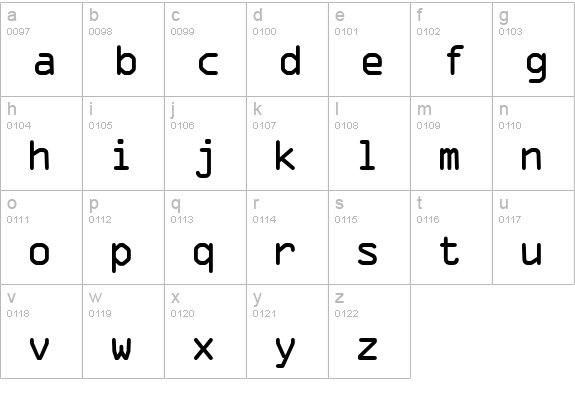
OCR 1 SSi Font Details
OCR 1 SSi font is a versatile and professional typeface designed for optimal readability in print and digital media. Its clean and modern design makes it perfect for use in documents, reports, and presentations. This font is ideal for creating a polished and professional look while maintaining high legibility. What makes OCR 1 SSi font even more appealing is that it is available for free download at FontsMarket.com. This means you can easily access this high-quality font without any cost, making it a valuable addition to your font library. Enhance your projects with OCR 1 SSi font and enjoy the benefits of its sleek and clear typography. Download it today and elevate your design work to the next level.